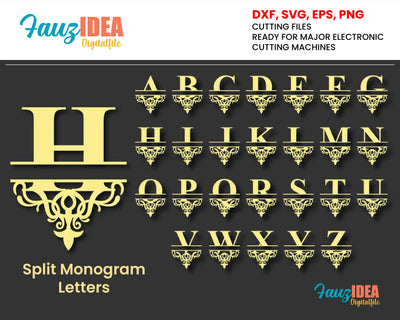
Split Monogram Letters SVG DXF Vector Cut Files Monogram Font Cuttable Letters Vinyl Iron On Heat Press Transfer Silhouette Cricut
The set includes:
- 26 split ornate alphabet letters,